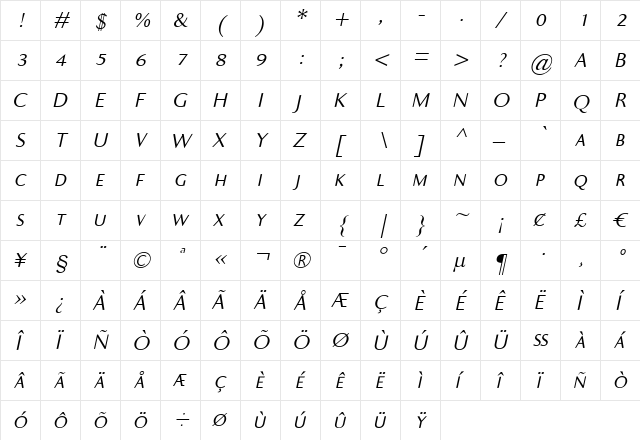
Ela Sans SemiLight Caps Italic
Design Context for Ela Sans SemiLight Caps Typeface
Ela Sans SemiLight Caps is a composed and adaptable typeface that performs quietly and consistently across a wide range of design contexts. Its italic angle brings a sense of urgency and motion to the letterforms. The delicate stroke weight brings airiness and refinement to layouts.